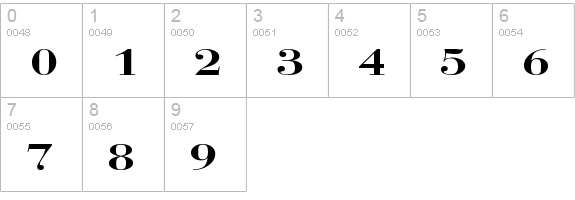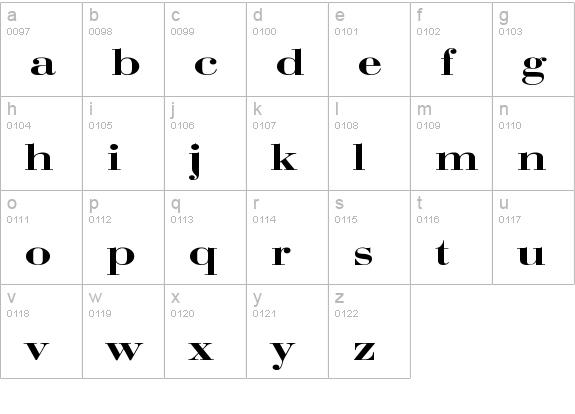
Bodoni Wide is a distinctive, extended-width variant in the Bodoni typeface family \xE2\x80\x94 well suited to design and typography projects.
Bodoni Wide font is a stylish and elegant typeface that exudes sophistication and class. Its wide letterforms make a bold statement, perfect for headlines, titles, and other attention-grabbing text. The high contrast between thick and thin strokes adds a touch of drama and flair to any design project. What makes Bodoni Wide font even more appealing is that it is available for free download at FontsMarket.com. This means that you can easily access this beautiful typeface and use it in your projects without any cost. Whether you're working on a print design, web project, or any other creative endeavor, Bodoni Wide font is sure to elevate your work and leave a lasting impression. Download it today and add a touch of sophistication to your designs.